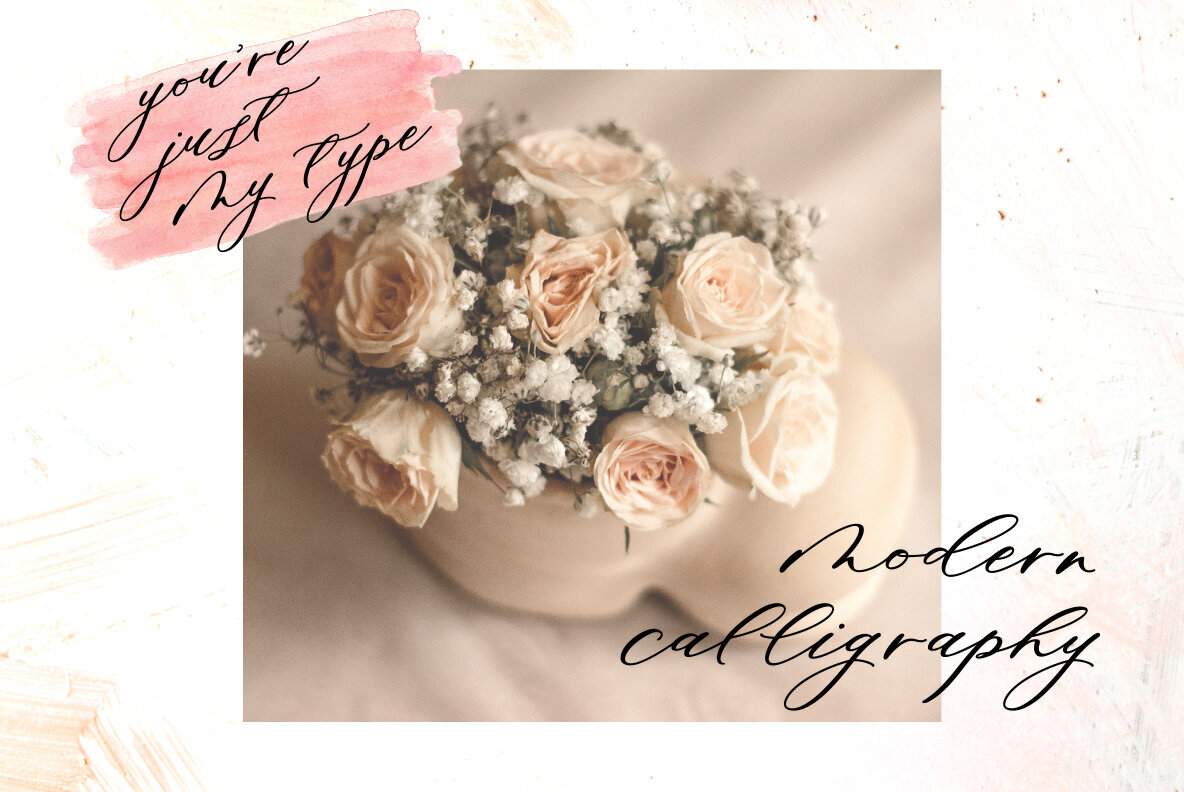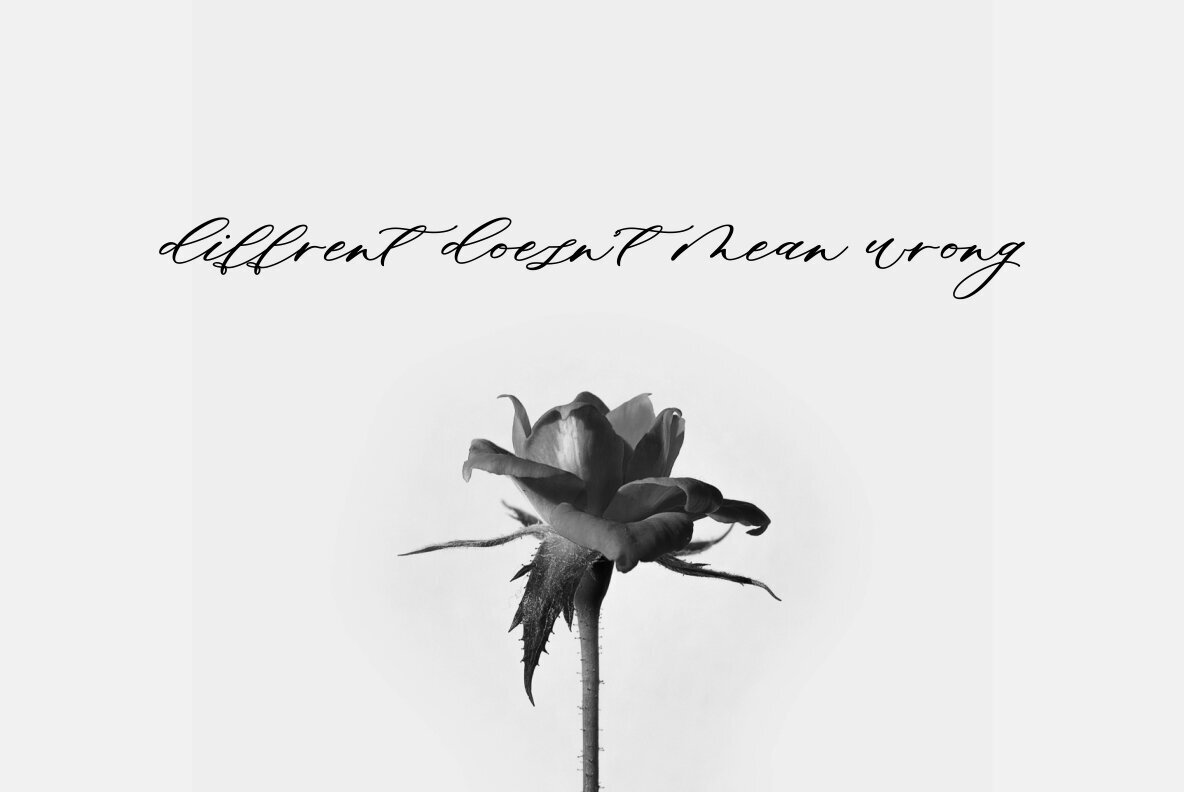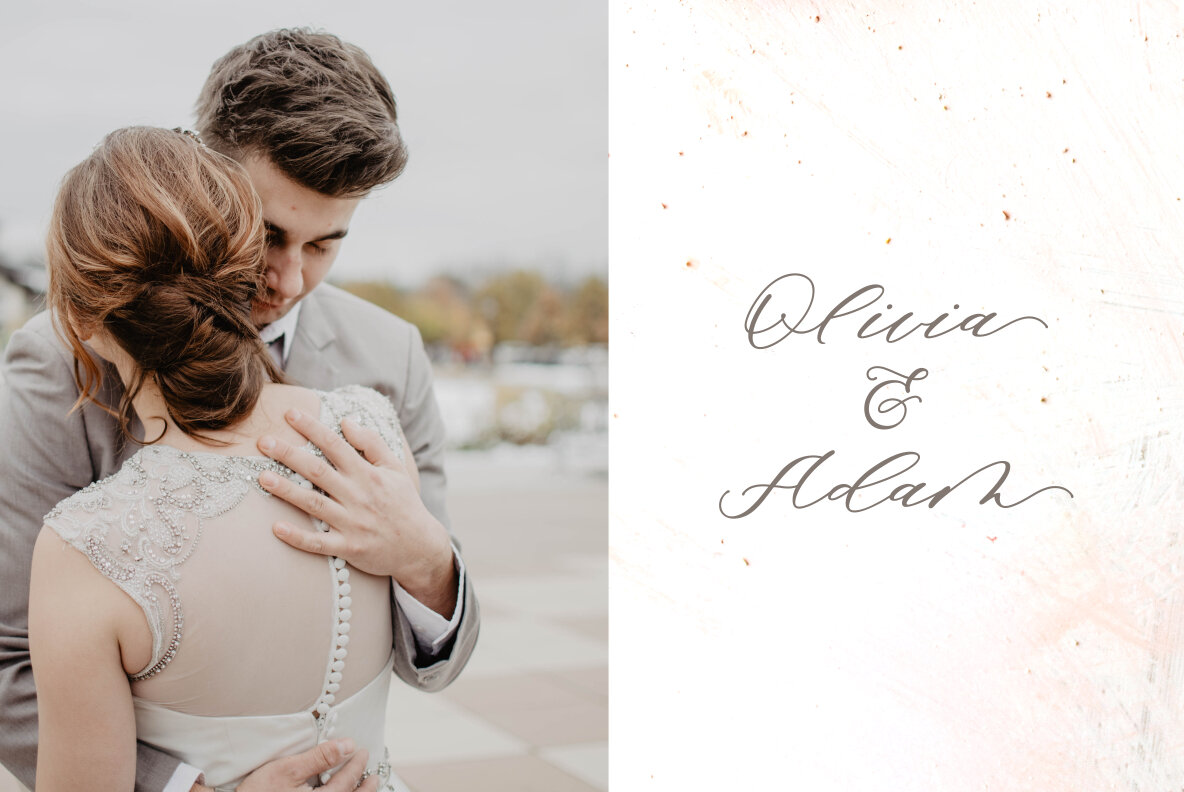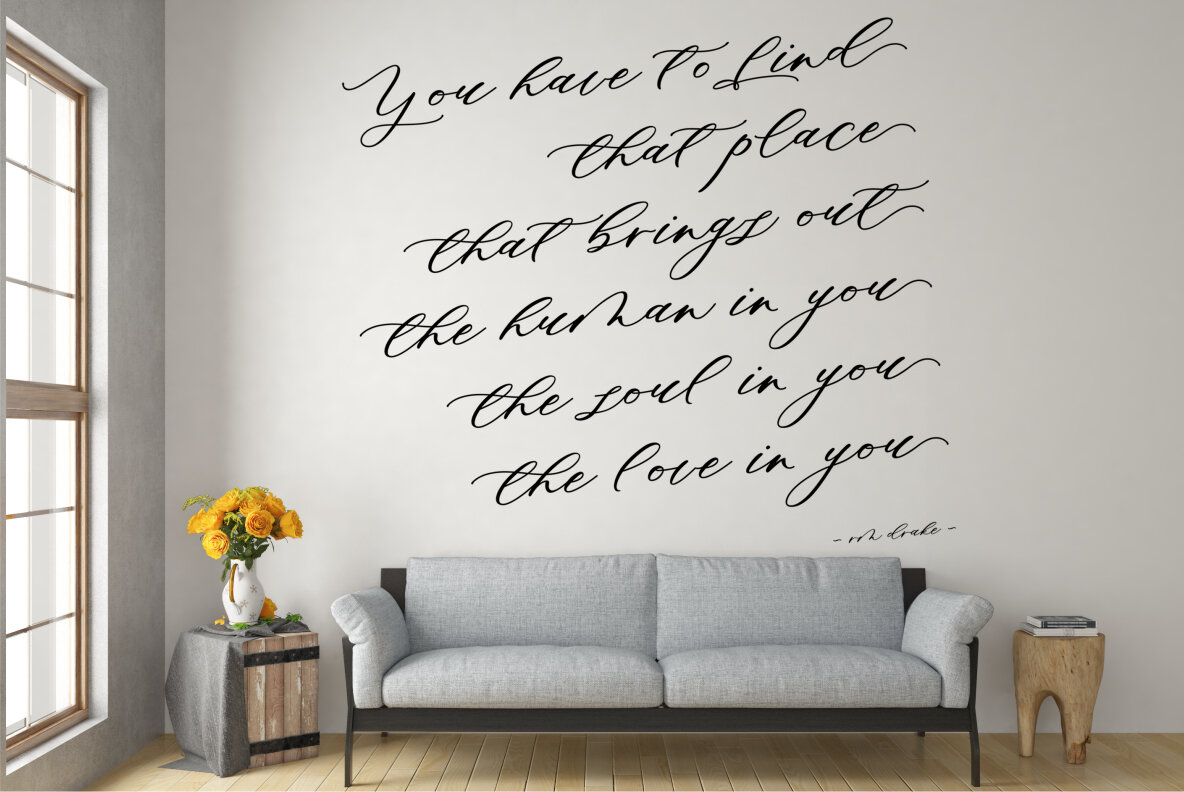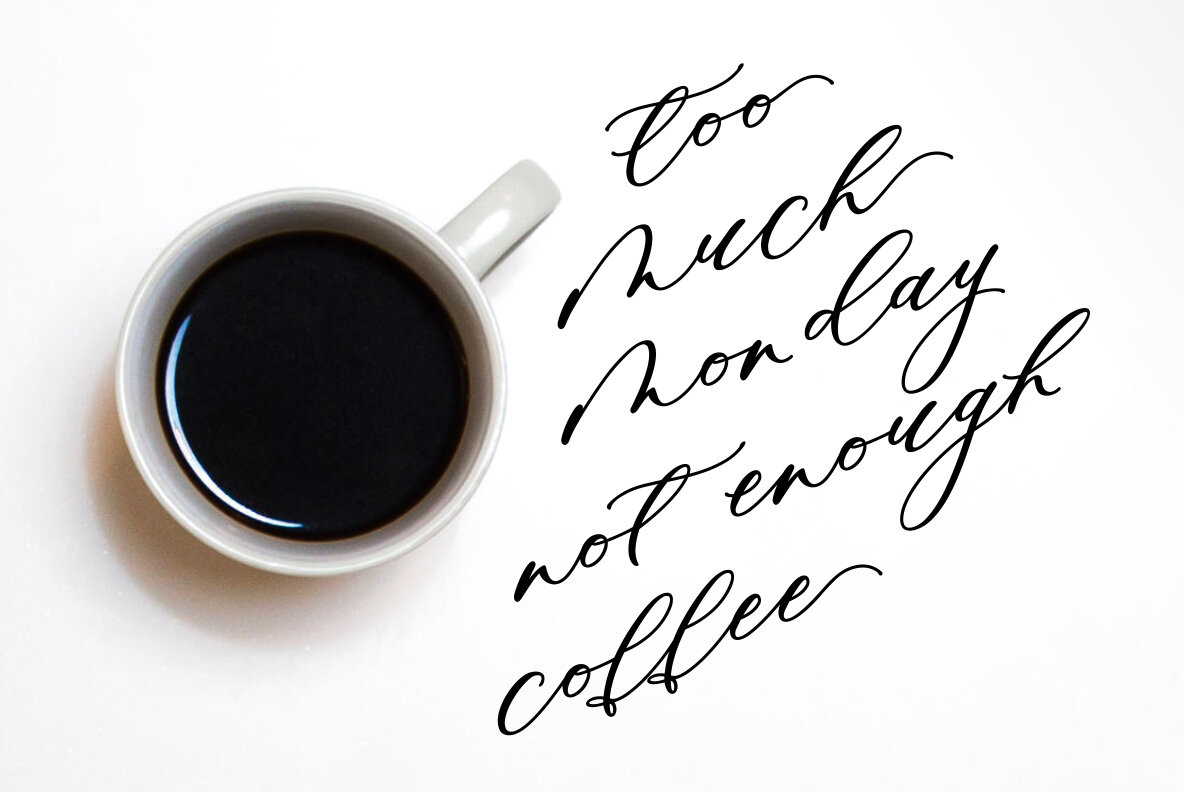
Minimalist Font
Minimalist Script Regular
by Nurul Fajri Redy
Minimalist Script consists of a wide selection of clean, crisp, and modern calligraphy scripts for your design. Minimalist has the beautiful letter essence, it brings the beauty of typography to design your own story!
Minimalist Script is a perfect choice for any creative project related to any phrase, quote, and wedding announcement post. The minimalist script brings simplicity to another level with its meaningful lettering forms, which make this font special and attractive.
Minimalist Script features:
- A full set of upper & lowercase characters
- Numbers & Punctuation
- Ligatures
- A full set of upper & lowercase characters (Alternates)
- Lowercase ending swashes